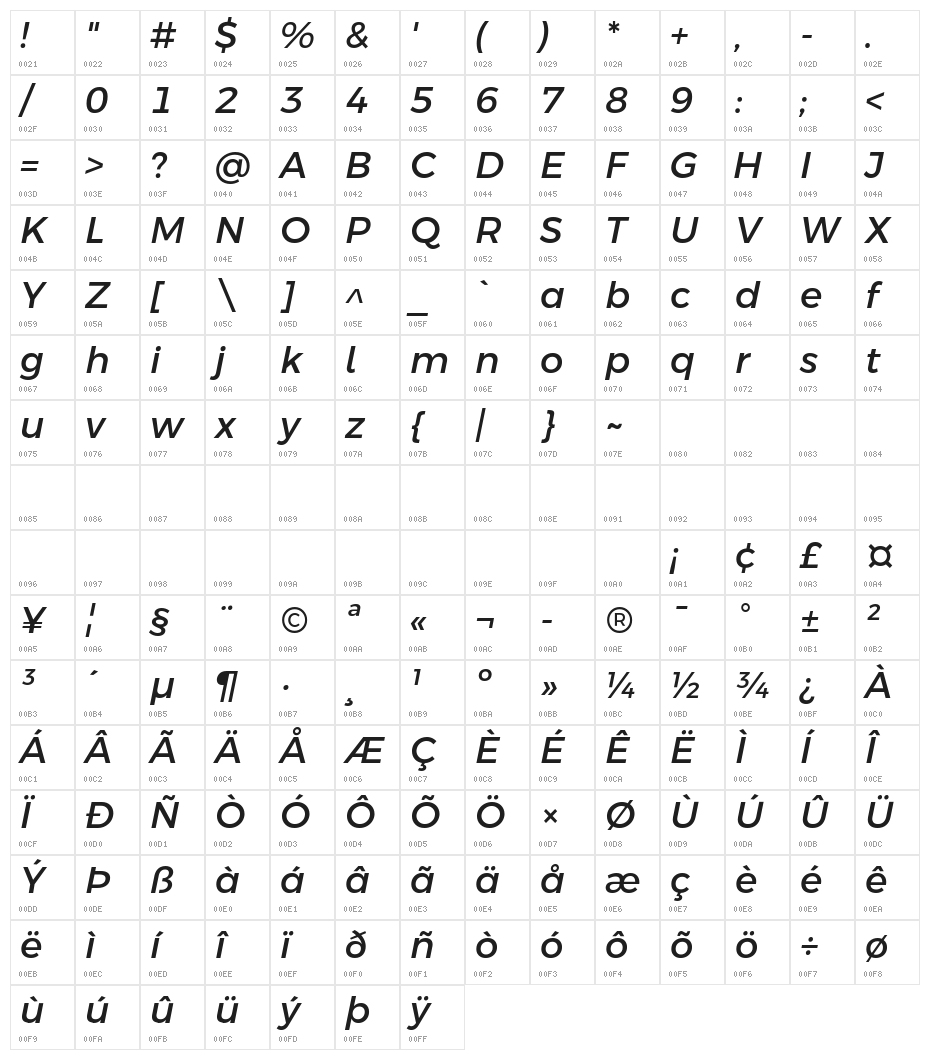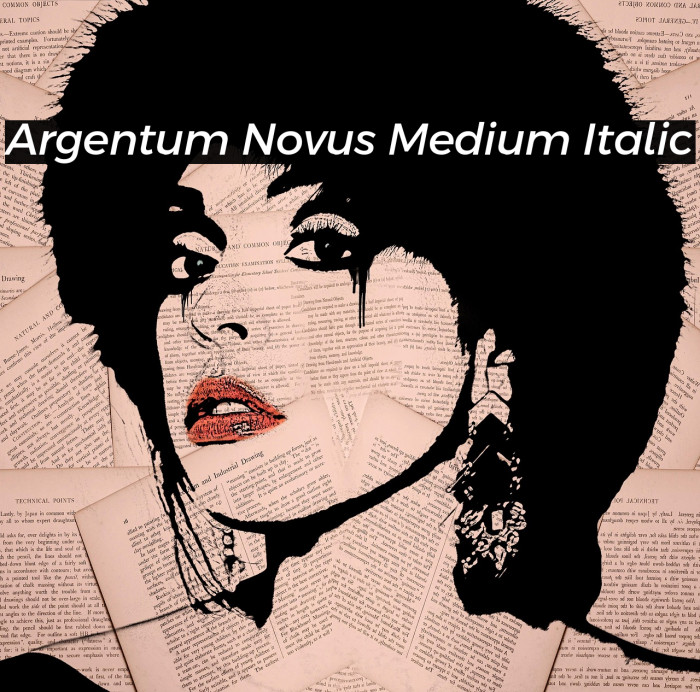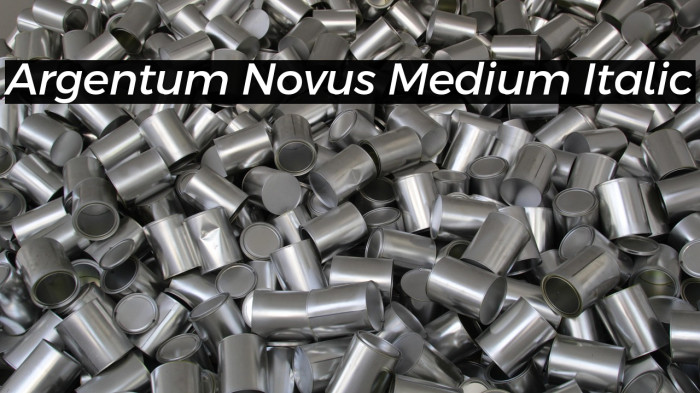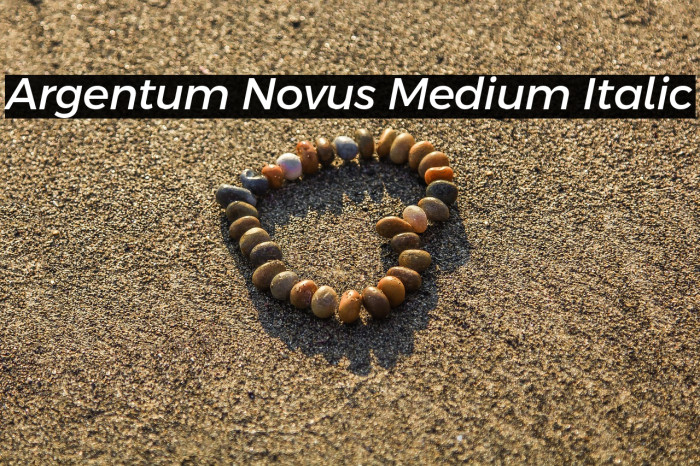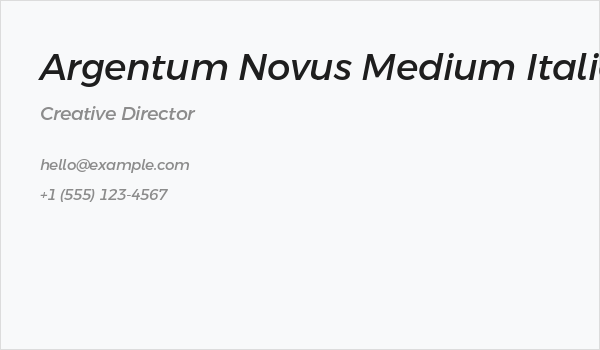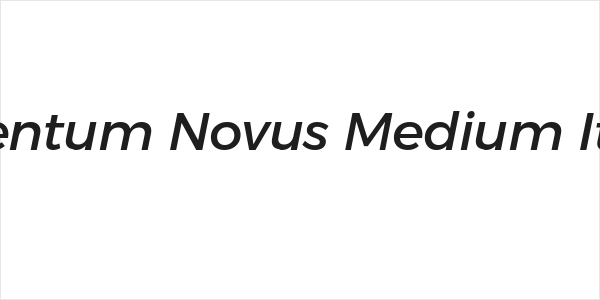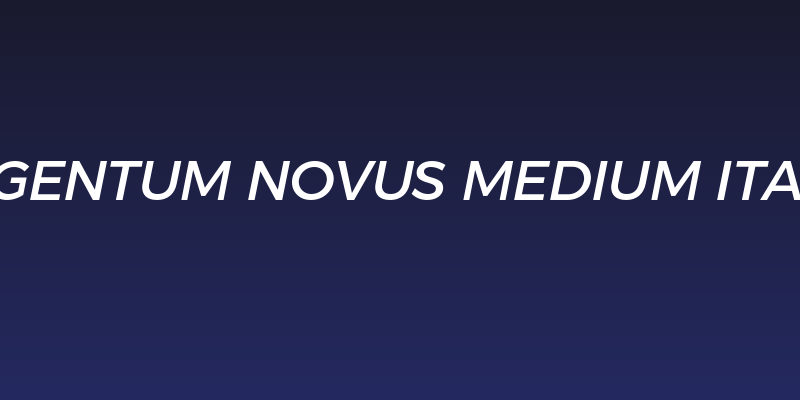
Argentum Novus Medium Italic Font
Argentum Novus Medium Italic Description
This font features a sleek and modern design with a slight italic slant, giving it a dynamic and forward-moving appearance. The characters are well-balanced with a medium weight, providing a sense of stability and readability. The sans-serif style ensures a clean and uncluttered look, making it versatile for various design needs. The character spacing is normal, allowing for easy readability without feeling cramped. The contrast in stroke thickness is medium, offering a harmonious blend of boldness and subtlety. Overall, this font exudes a contemporary and professional vibe, suitable for a wide range of applications.
| Proposed Projects | Ideal for branding, advertising, digital content, and editorial design. |